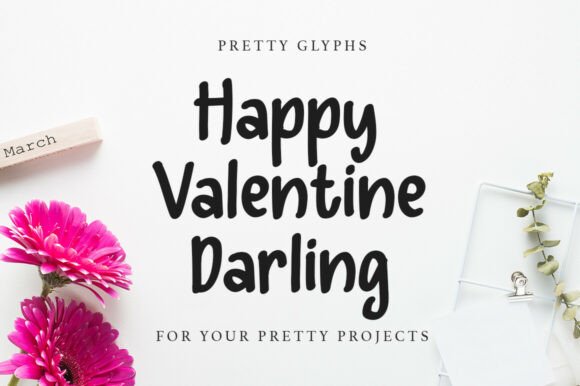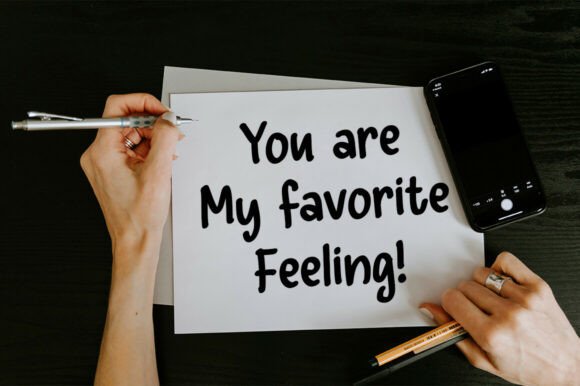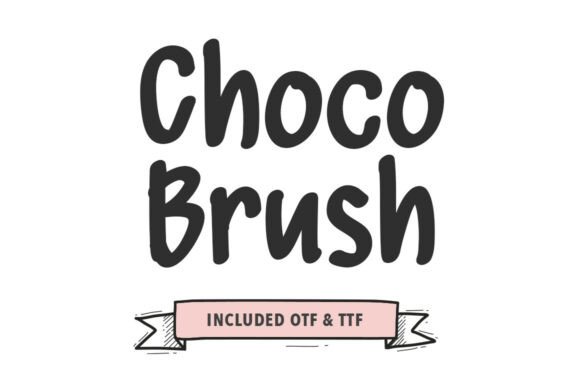
Introducing Choco Brush Font: Unleash the Power of Artistic Expression
In the world of typography, few fonts manage to capture the essence of artistic expression as effortlessly as the Choco Brush Font. This stunning handwritten brush font embodies the perfect blend of bold energy, stylish panache, and an organic touch that is sure to elevate your designs to new heights. Crafted to resemble actual brush strokes, each letter in the Choco Brush Font suite exudes dynamic movement, natural flow, and a handcrafted texture that sets it apart from more conventional fonts.
The Art of Imperfection: What Makes Choco Brush Font Unique
Choco Brush Font is not just another font – it’s an experience. Its unique, handcrafted texture gives it a distinct personality that screams creativity and artistic flair. The font’s imperfections, reminiscent of actual brush strokes, add a layer of authenticity and tactility to your designs. This is a font that doesn’t just communicate; it resonates, leaving a lasting impression on your target audience.
Designed for Creative Connoisseurs
Choco Brush Font is specifically designed for creative connoisseurs who crave a revitalizing blend of casual spontaneity and modern sensibilities. Whether you’re a designer, craftsperson, or social media enthusiast, this font is poised to inject a confident, artsy vibe into your branding endeavors or social content. With Choco Brush Font, you can bid adieu to bland, run-of-the-mill typography and hello to a world of limitless creative possibilities.
Key Features of Choco Brush Font
- Handwritten Brush Font: Choco Brush Font boasts a beautiful, handwritten aesthetic that lends a personal touch to your designs.
- Dynamic Movement: Each letter is crafted to resemble actual brush strokes, imbuing the font with a sense of dynamic movement and natural flow.
- Handcrafted Texture: The font’s unique texture adds a layer of tactility and authenticity to your designs, setting them apart from the crowd.
- Robust Persona: Choco Brush Font exudes confidence and creativity, making it perfect for designers and crafters seeking to make a statement.
Unlock Endless Creative Possibilities with Choco Brush Font
Choco Brush Font is an incredibly versatile font that can be used across a wide range of design applications, from branding and advertising to social media and crafting. Its arresting appeal and intoxicating creative energy make it an excellent choice for designers and crafters seeking to create unforgettable, stand-out messages.
Tips for Using Choco Brush Font Effectively
- Pair with Neutral Backgrounds: Allow Choco Brush Font to take center stage by pairing it with neutral backgrounds that won’t compete for attention.
- Experiment with Colors: Don’t be afraid to experiment with different colors and textures to add depth and visual interest to your designs.
- Mix and Match: Combine Choco Brush Font with other fonts to create visually striking typography that’s sure to capture your audience’s attention.
In conclusion, Choco Brush Font is a game-changing font that offers a refreshing blend of artistic expression, creativity, and technical sophistication. Its unique, handcrafted texture and dynamic movement make it an excellent choice for designers and crafters seeking to infuse their designs with a confident, artsy vibe. With Choco Brush Font, you can unlock endless creative possibilities and create unforgettable, stand-out messages that resonate with your target audience.